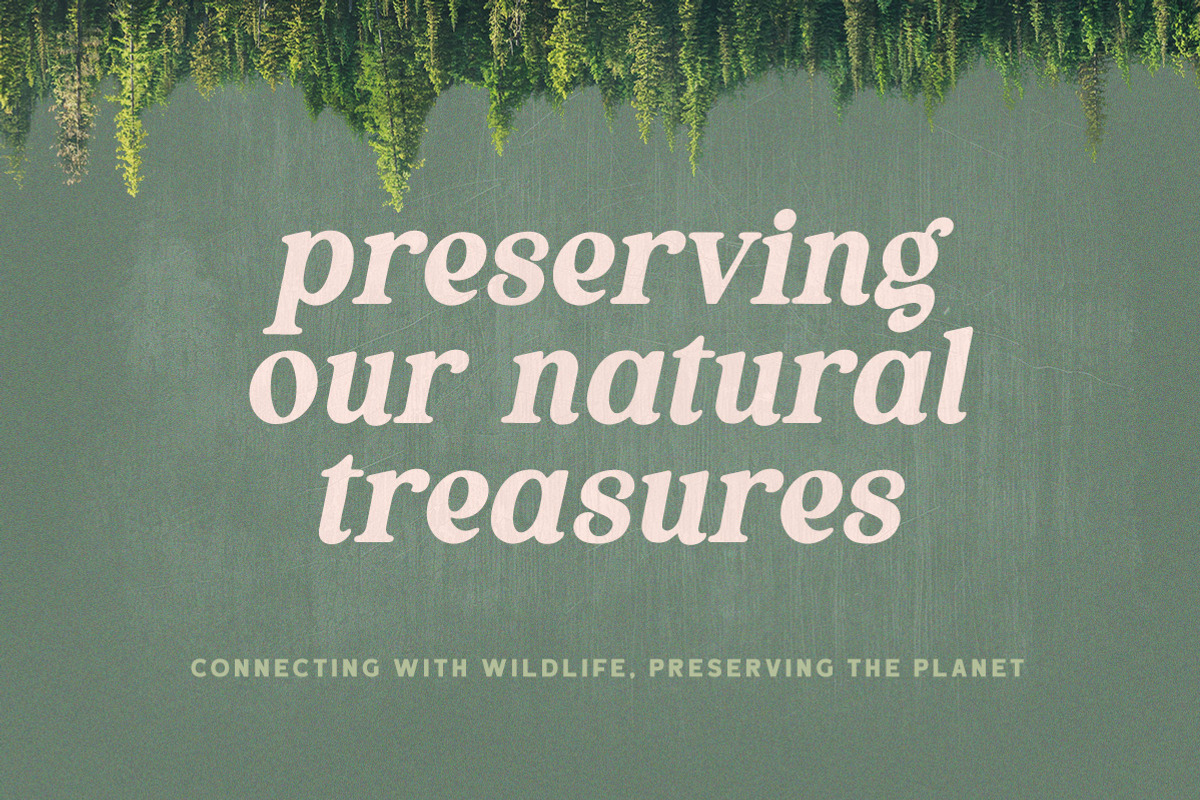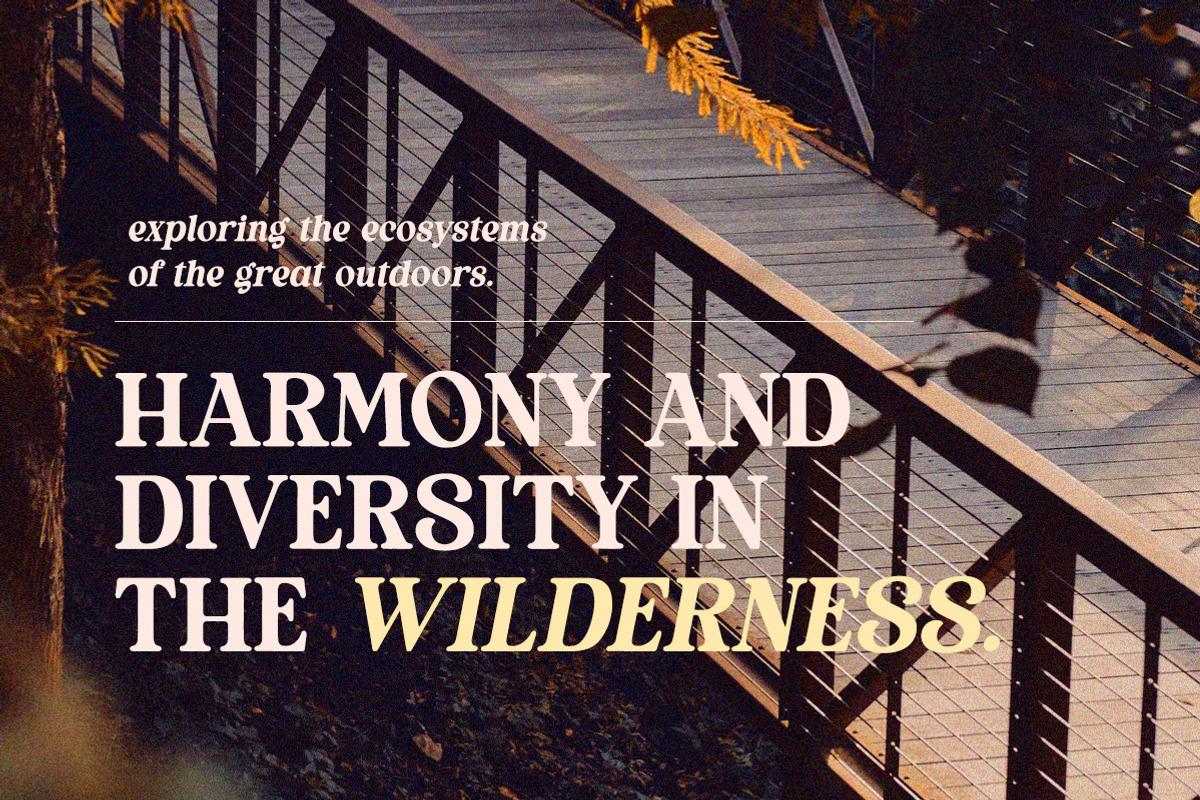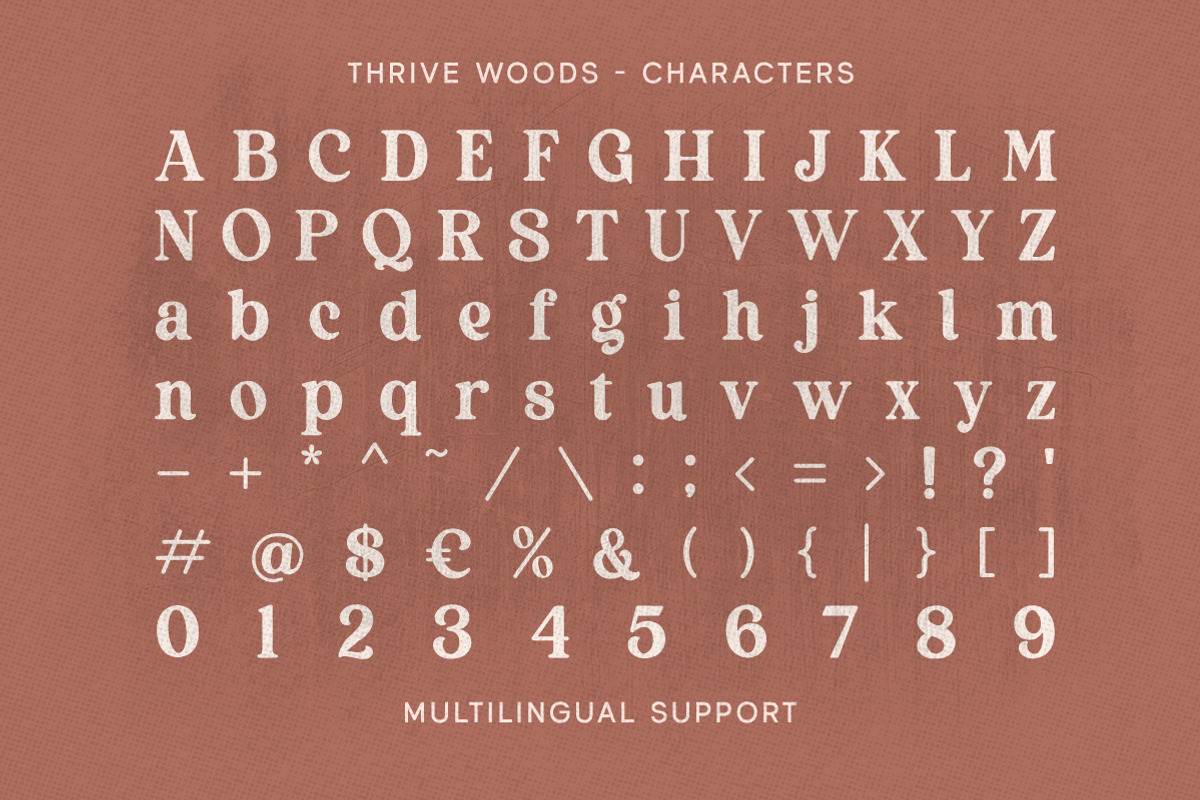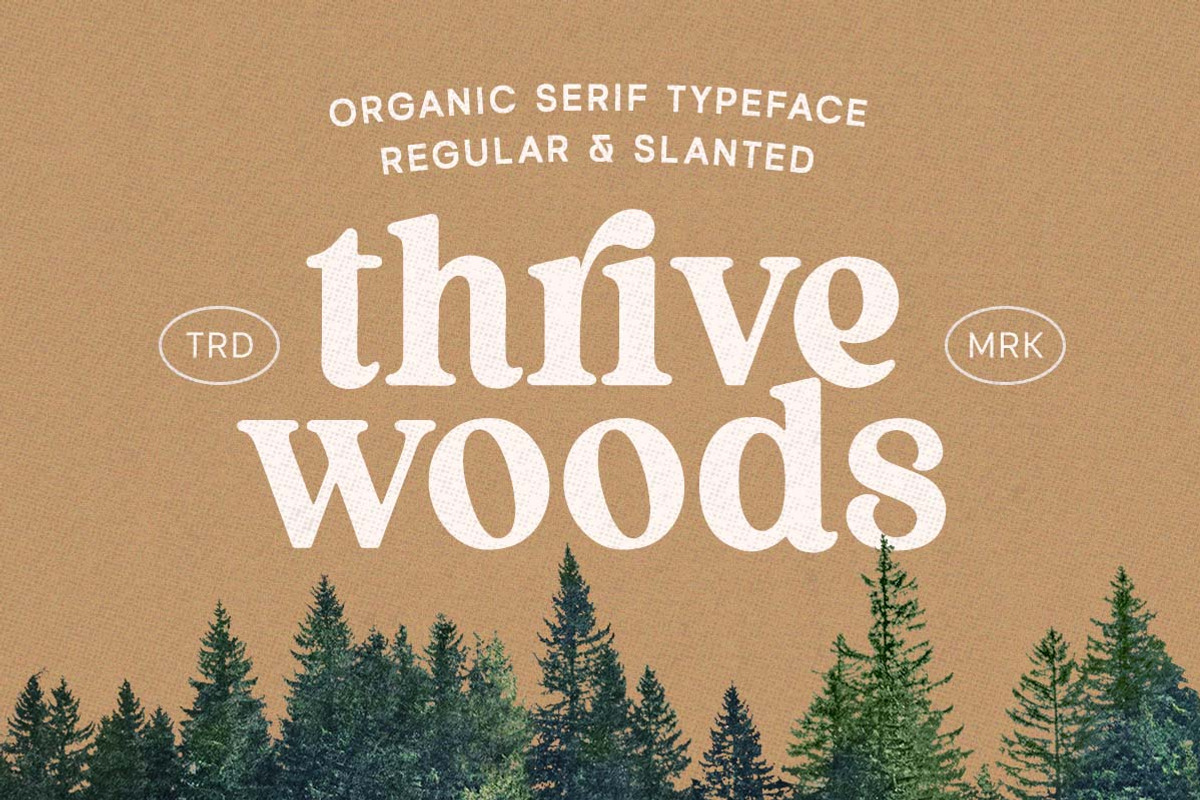
Thrive Wood - Organic Serif
Thrive Wood is a organic serif with stylish looks. This font perfectly made to be applied especially in logo, and the other various formal forms such as invitations, labels, logos, magazines, books, greeting / wedding cards, packaging, fashion, make up, stationery, novels, labels or any type of advertising purpose.